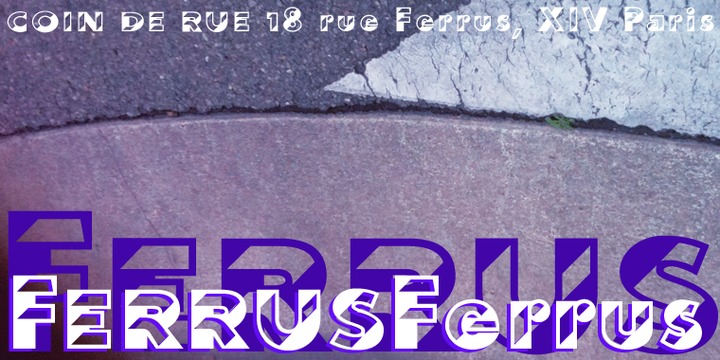
Ferrus is named after the location of famous French foundry Deberny & Peignot which was at 18 Rue Ferrus, XIV Paris.
Ferrus is inspired by a 1920s font named “Acier”. But Ferrus is not a revival or copy of that font, it is a new design based on a strong black and white contrast in 45 degrees, which gives the font a fake three-dimensional character. I made two cuts, a plain bold one and a Smallcaps version, like this you get two fonts for a fair price.